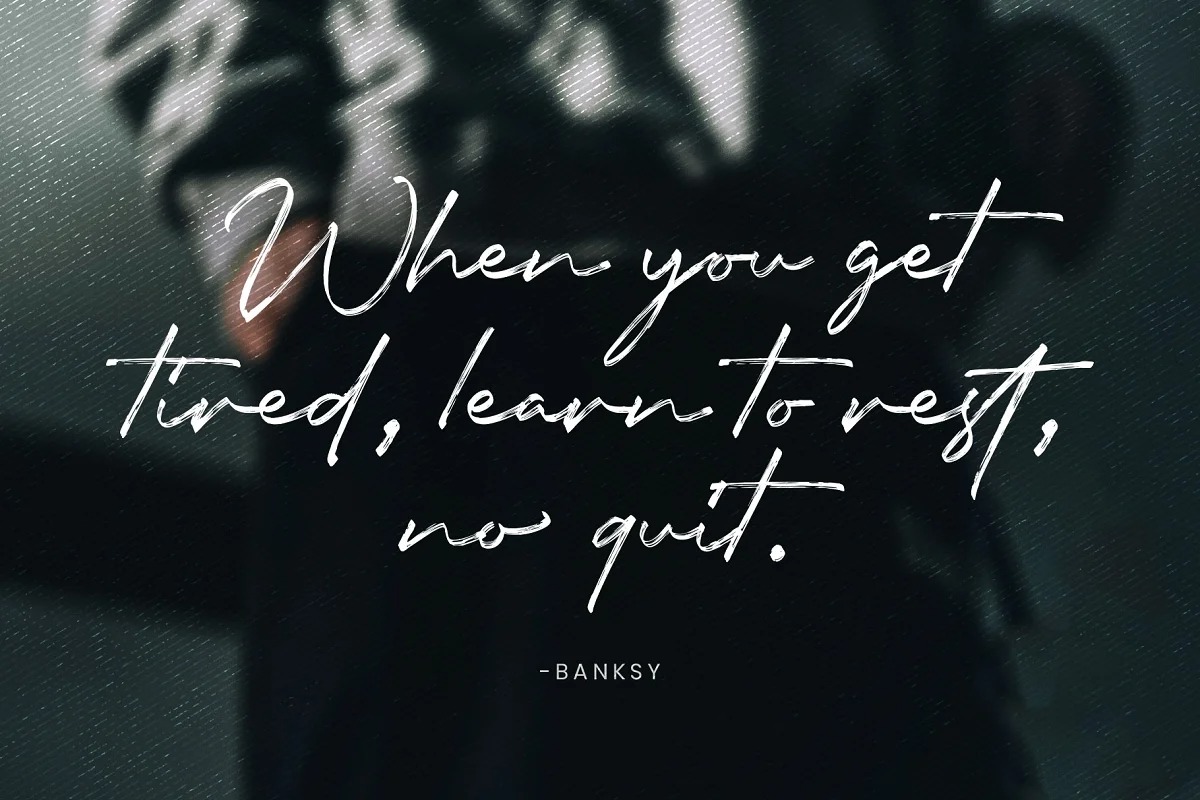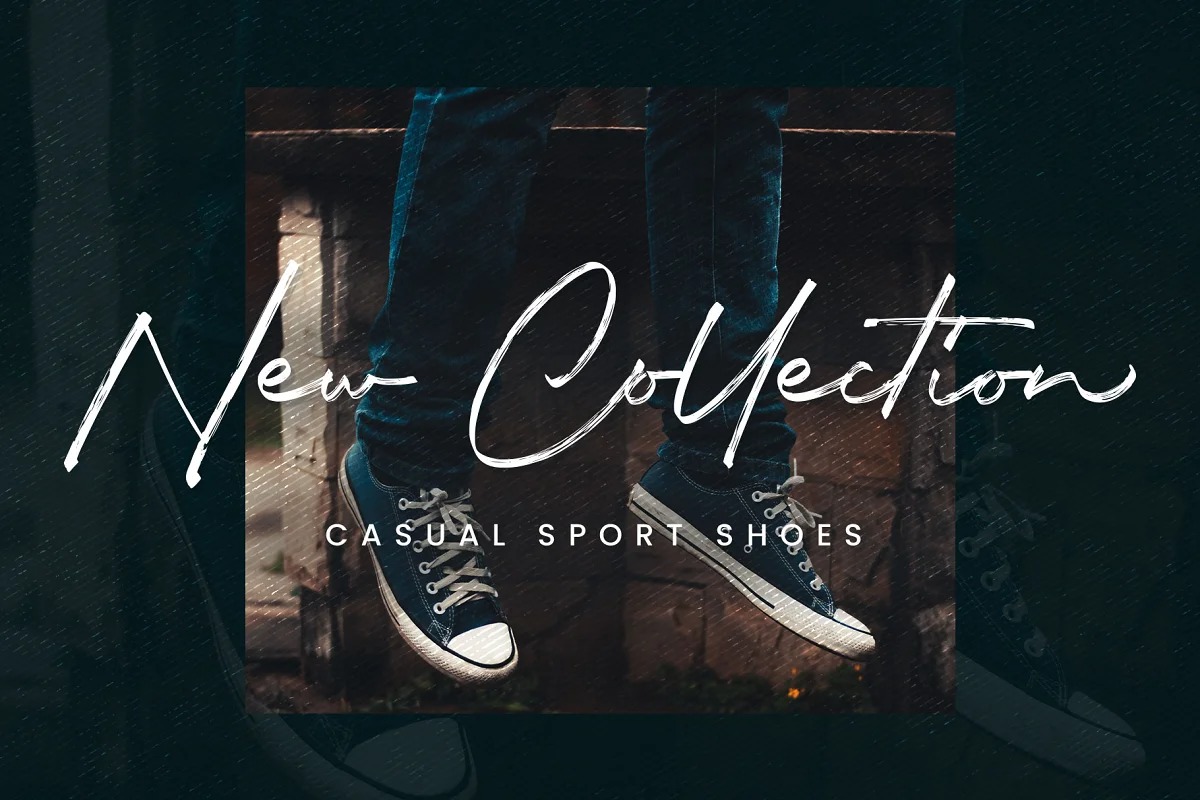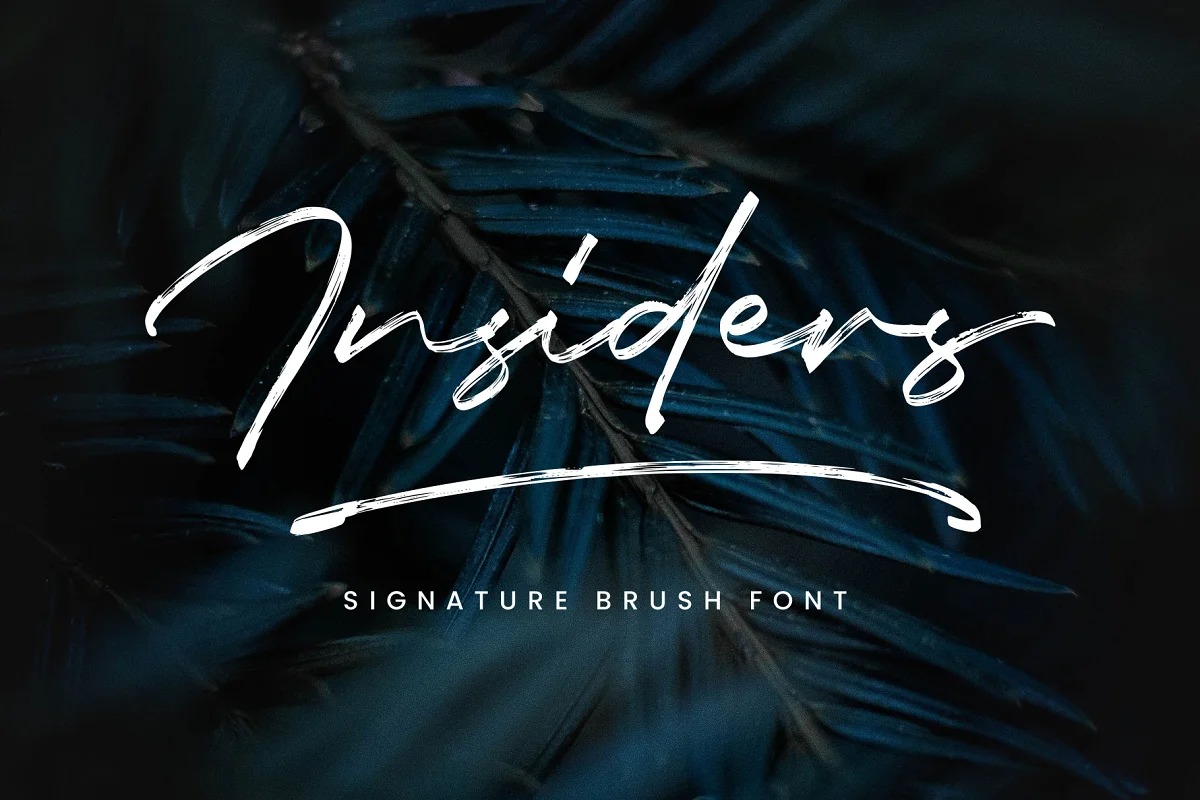
Insiders Brush Font
It’s Authentic Brush typeface. font is a signature style and classy style,with a clear style and dramatic movement. Made from font designer named Arterfak Project. A brush font made with the high attention of the brush details. Inspired by the dry brush lettering and signature logo.
This font has the feel of handwriting and energetic, which absolutely handy to create a casual and elegant design. Insider complete with alternates characters, ligatures, and swashes that you can apply on T-shirts, labels, titles, books, quotes, logos, logotypes, packaging, and much more!